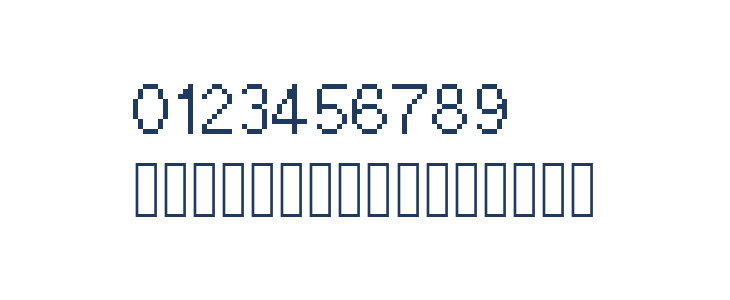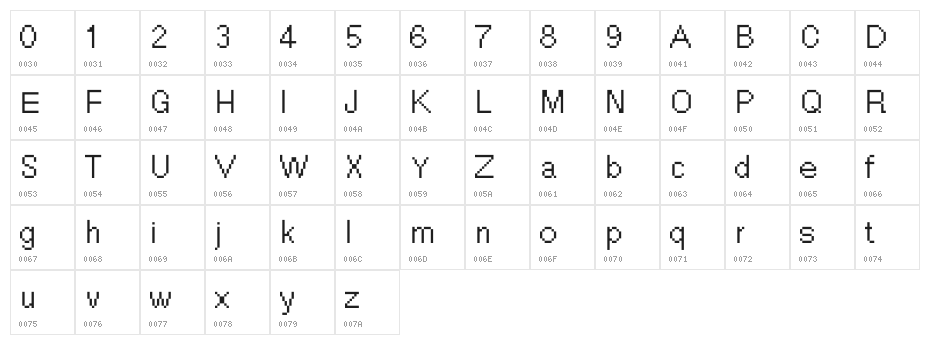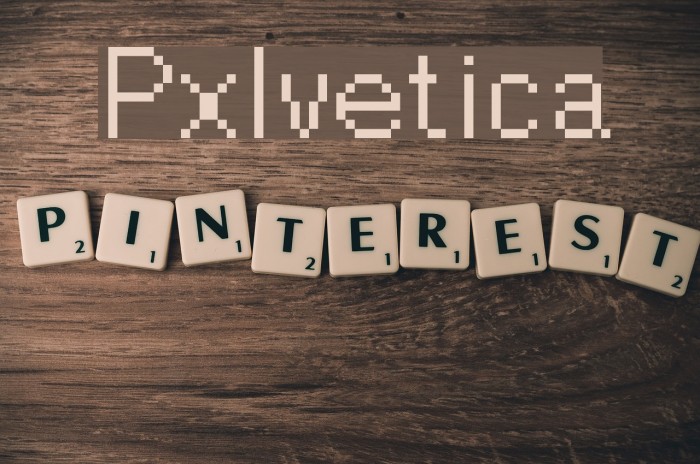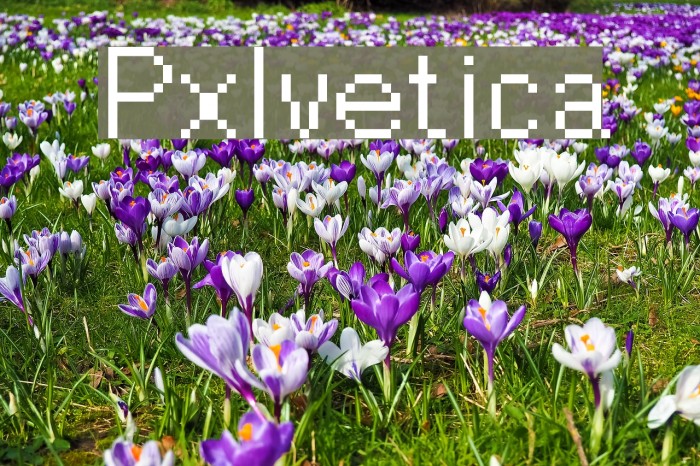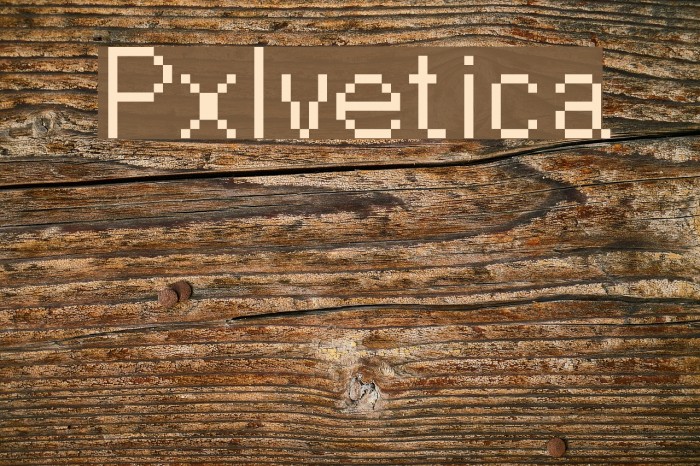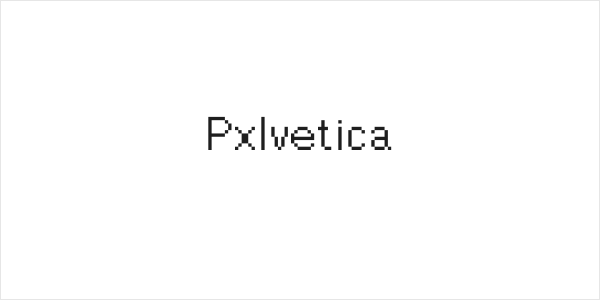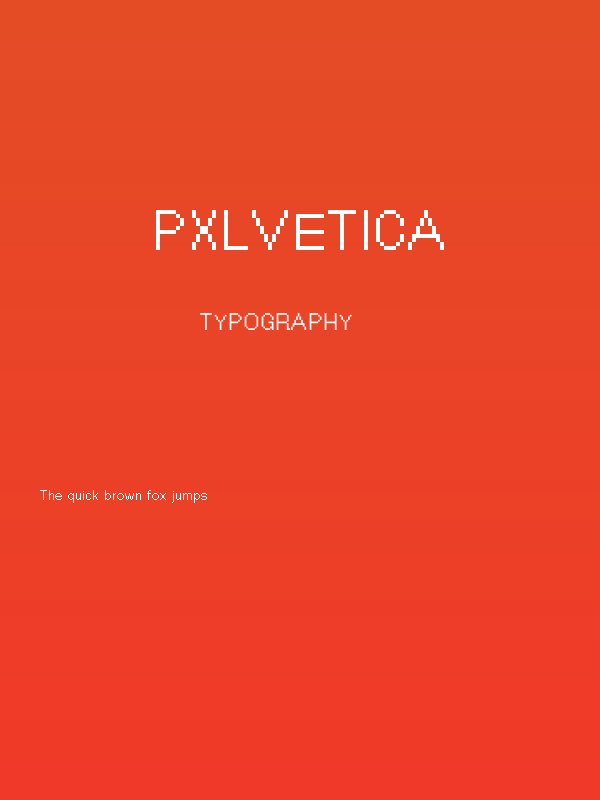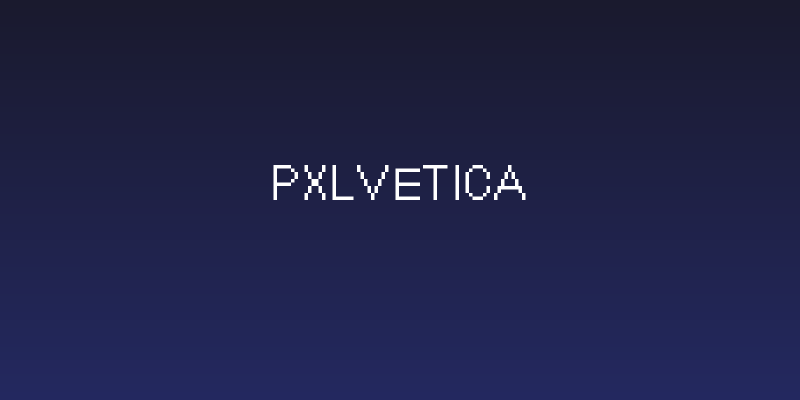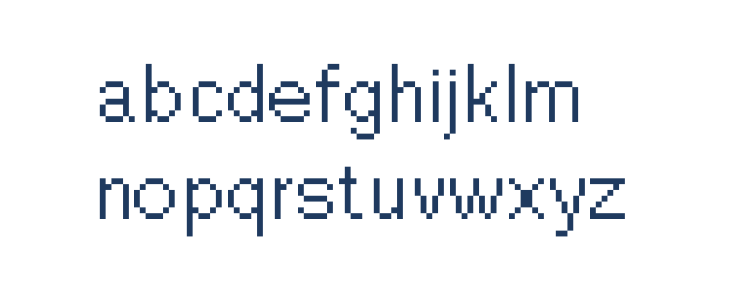
Pxlvetica Font
Pxlvetica Description
This font features a pixelated, grid-like design that is reminiscent of early digital displays and retro video games. Each character is composed of small, square blocks, giving it a distinctly digital and geometric appearance. The uppercase and lowercase letters maintain a consistent height and width, contributing to a uniform and structured look. The numerals and special characters follow the same pixelated style, ensuring visual cohesion across all elements. This font's simplicity and clarity make it ideal for projects that aim to evoke nostalgia or a tech-inspired aesthetic.
| Overall Style | Retro, Digital |
| Use Case | Logos, Headlines, Digital Art |
| Proposed Projects | Ideal for retro video game designs, digital art projects, tech-themed posters, and nostalgic branding. |